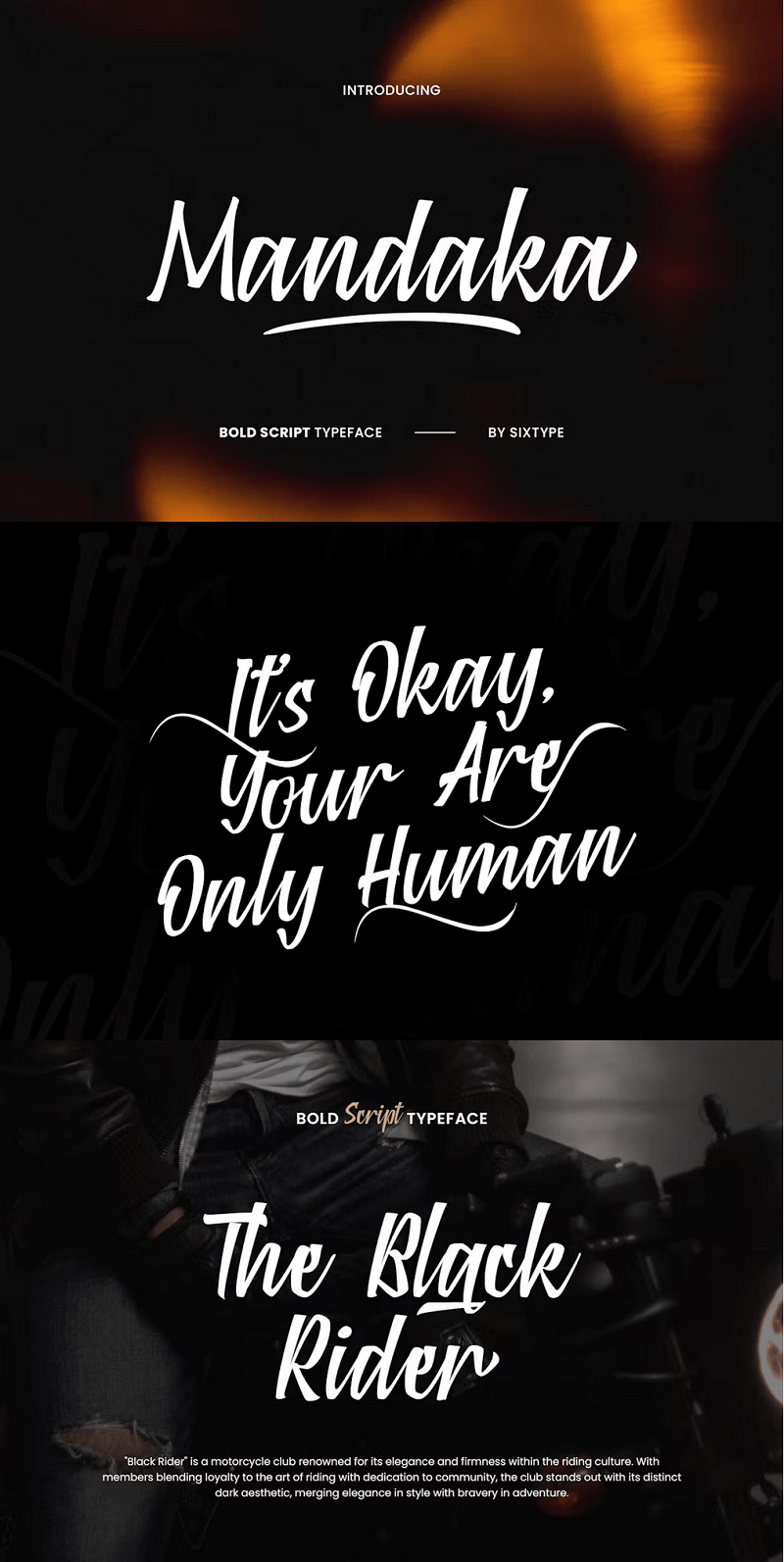
EE - Mandaka - Bold Script Typeface GFH5KED
Mandaka Font embodies a bold and assertive script style, exuding a distinctly masculine vibe. Perfectly suited for projects requiring a strong and confident aesthetic, Mandaka Font adds a touch of authority and power to invitations, branding materials, headlines, posters, and more.